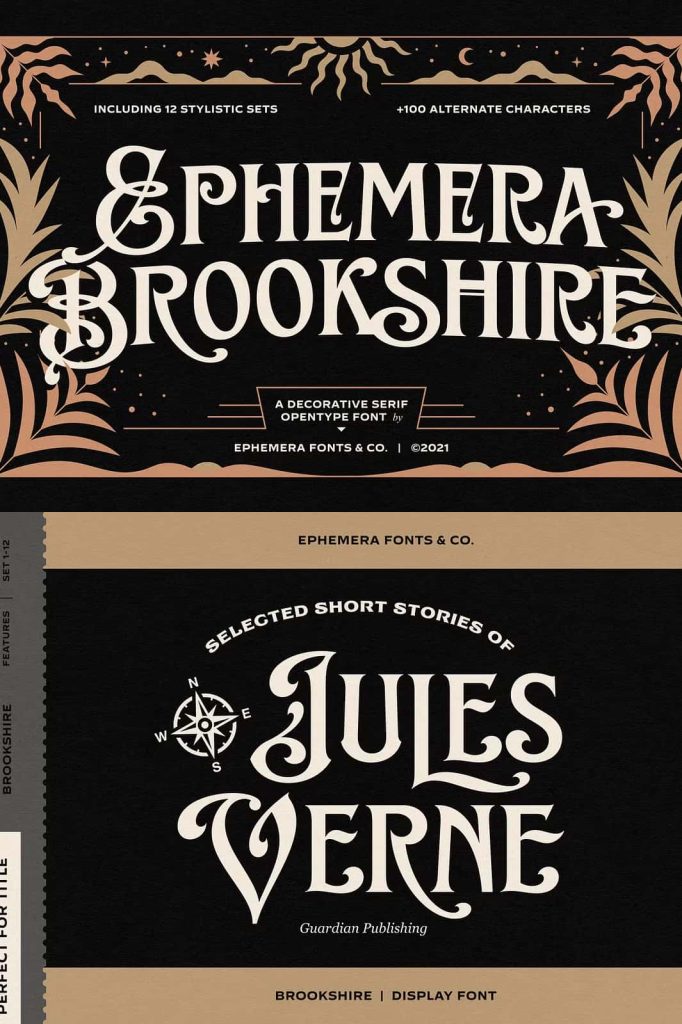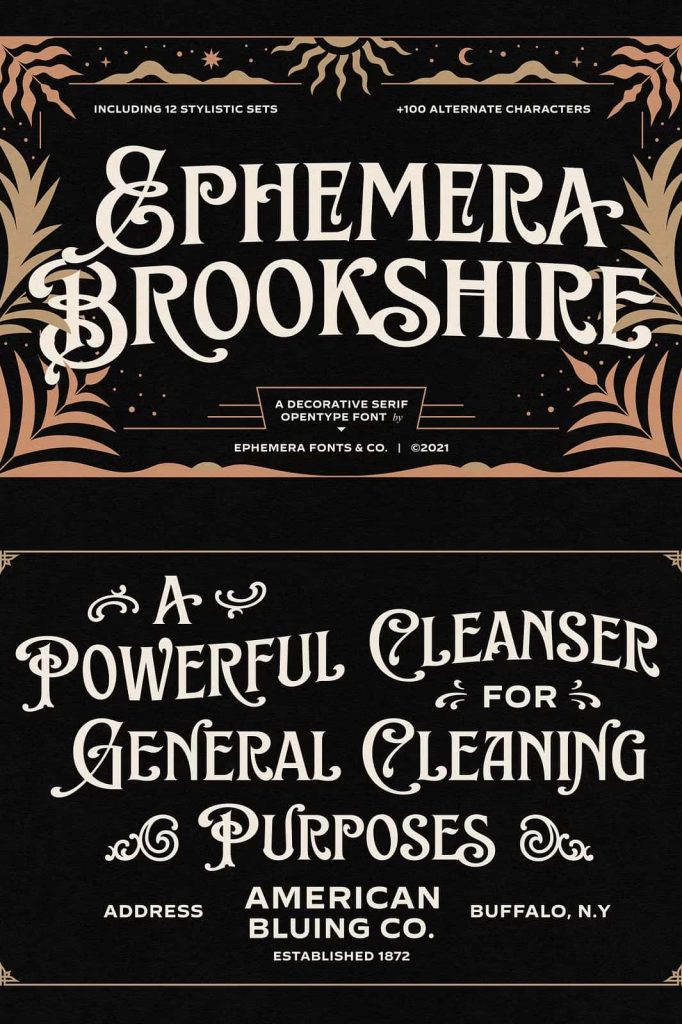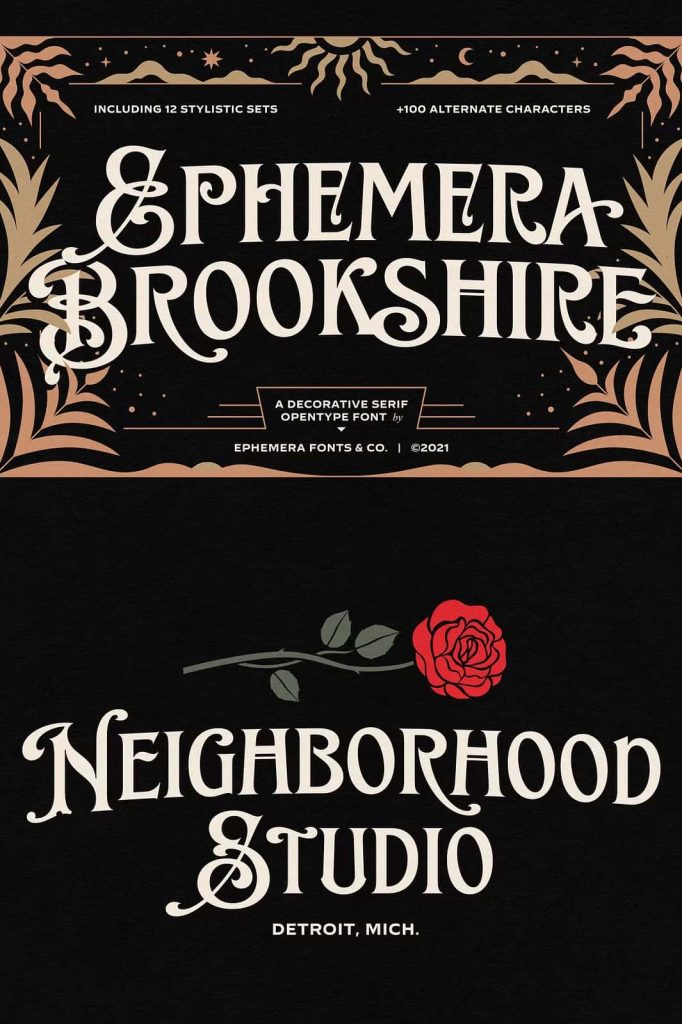
Brookshire – A Vintage Lettering Font Inspired by Timeless Ephemera
Brookshire draws its inspiration from the elegant lettering styles found in vintage ephemera prints, merging classic craftsmanship with modern usability. Every curve, stroke, and serif captures the charm of hand-drawn type from a bygone era. This typeface brings the nostalgia of old-world design into the present day, making it ideal for projects that seek authenticity, heritage, and sophistication. With Brookshire, designers can evoke the essence of tradition while maintaining clarity and character in every composition.
Inspired by the Artistry of Ephemera
The Brookshire font was born from a love of historical print culture — posters, product labels, and advertisements from the early 20th century that celebrated elegance through typography. Each letterform echoes the precision and warmth of vintage craftsmanship. By studying the ornamental yet functional lettering of that era, Brookshire reimagines these qualities for the modern designer. The result is a typeface that feels both familiar and fresh, blending classic influence with contemporary usability.
A Typeface That Honors Tradition and Design Heritage
Brookshire embodies the sophistication of a time when typography was more than just communication — it was an art form. The lettering pays homage to the ornate details and stylistic nuances once used in packaging, signage, and printed ephemera. From intricate flourishes to balanced proportions, every feature of Brookshire reflects careful attention to historical detail. Yet, it’s crafted with today’s design standards in mind, offering seamless integration into modern workflows and digital design environments.
Perfect for Classic Branding and Timeless Design
Brookshire thrives in applications that require character, authenticity, and visual impact. Its refined letterforms make it perfect for product names, packaging, labels, logos, old-fashioned signage, and branding projects that emphasize heritage and trust. Whether you’re designing a luxury fragrance label, a craft beverage brand, or a retro-inspired poster, Brookshire brings a sense of history and elegance that enriches your visual identity. Its legibility and decorative charm make it versatile across both print and digital formats.
Bringing Nostalgia into Modern Design
While Brookshire is deeply rooted in vintage aesthetics, its structure and clarity make it suitable for modern usage. The balance between ornamentation and simplicity gives designers flexibility — from decorative headlines to refined text applications. Brookshire’s classic influence brings emotional resonance to contemporary design, allowing your audience to connect with the timeless beauty of the past. It’s not just a typeface; it’s a bridge between eras, translating old-world artistry into modern communication.
Why Designers Choose Brookshire
- Authentic vintage inspiration: Modeled after elegant lettering from historical ephemera prints.
- Versatile application: Perfect for packaging, signage, branding, and editorial design.
- Timeless appeal: Combines the craftsmanship of the past with modern readability.
- Distinctive personality: Adds depth and heritage to any creative project.
Capture the Spirit of a Bygone Era
Brookshire is more than a font — it’s a design experience steeped in tradition and artistry. It invites designers to rediscover the power of vintage typography, where every letter was drawn with purpose and precision. Brookshire allows you to tell stories that feel authentic, memorable, and visually rich. Its unique balance of elegance and utility makes it a go-to choice for anyone who values craftsmanship and timeless design.
Bring history back to life with Brookshire — a font that transforms ordinary projects into classic works of art. Let its charm and sophistication breathe new life into your creative vision, celebrating the beauty of the past while embracing the possibilities of modern design.